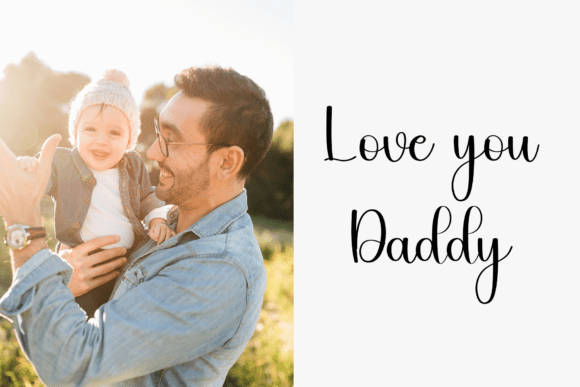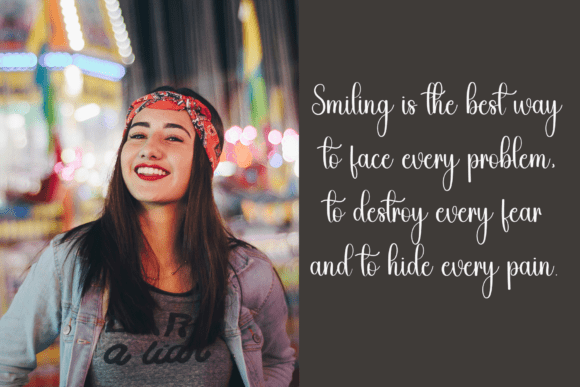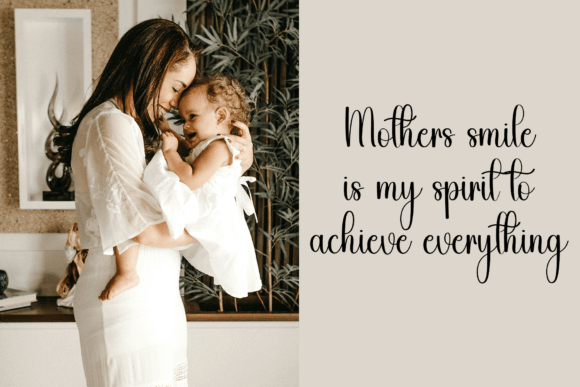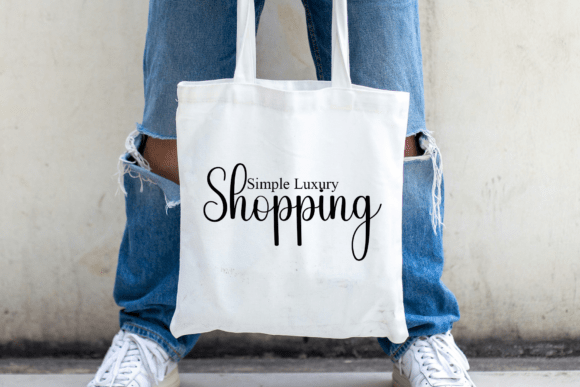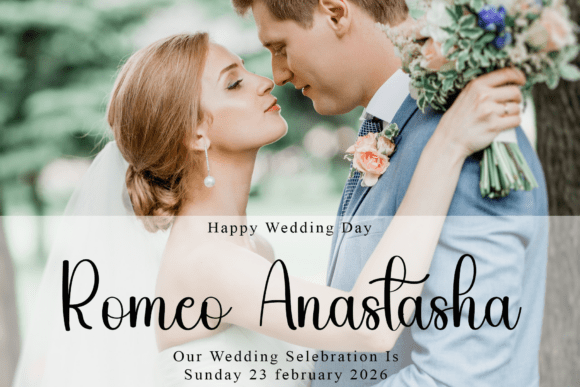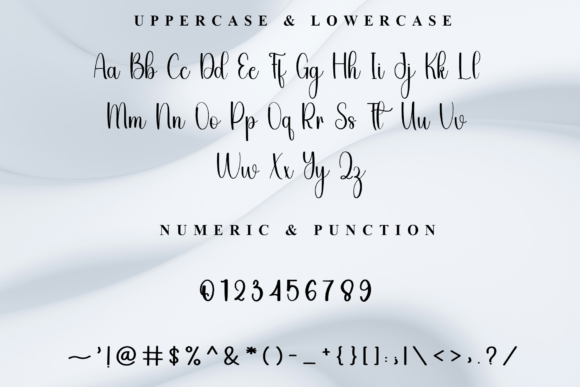
Unlocking the Secret to a Beautiful Smile
As a designer, you’ve probably experienced that moment when you’re brainstorming ideas for a project, and suddenly, the perfect font pops into your mind. It’s like a spark of creativity that sets your imagination ablaze. For me, that moment often starts with a playful, hand-drawn font that exudes warmth and friendliness.
Meet Beauty Smile Font, a casual and creative typeface that’s perfect for personal projects, invitations, and social media graphics. Its round, playful strokes create a relaxed and approachable feel that’s hard to resist. With its charming, hand-drawn aesthetic, Beauty Smile Font adds a fun and unique touch to any design. Whether you’re a seasoned designer or just starting out, this font is a valuable addition to your toolkit.
- Font Family: Beauty Smile is a unique, hand-drawn font that combines elegance and playfulness, ideal for various design projects.
- Character Set: The font includes a wide range of characters, including uppercase and lowercase letters, numbers, punctuation marks, and special characters.
- Unique Characteristics: The font’s hand-drawn design and irregular shapes give it a distinctive, personal touch, making it perfect for creative projects that require a unique look.
Design Review: Beauty Smile Font
Overall, I think the Beauty Smile Font is a nice addition to any design project. The font is clean, modern, and perfect for creating a touch of elegance and sophistication. ✨
- Playful and cursive feel, great for headers and titles ✨
- Wide range of language support, making it a versatile choice for global projects
- Comes in various weights and styles, allowing for a lot of creative flexibility
However, there are a few limitations that I’d like to mention:
- Not suitable for body text due to its decorative nature ⚠️
- Might not be the best choice for projects that require a more formal tone
- Some of the characters may not display correctly in certain fonts or applications
Overall, I’d give the Beauty Smile Font 4 out of 5 stars. While it has some limitations, its unique style and versatility make it a great addition to any design project. With a little creativity and planning, you can use this font to create some truly beautiful and eye-catching designs.
The Beauty Smile Font is perfect for:
- Creative and artistic designs
- Food and fashion branding
- Quirky and playful designs
Alternative Fonts for Beauty Smile Font
Cream Soda Font is a cursive font that resembles a vintage, handwritten style. It’s ideal for use in headings, titles, and other text where a playful, whimsical feel is desired. Compared to Beauty Smile Font, Cream Soda Font has a more relaxed, casual tone, making it suitable for a wider range of design applications.
Great Vibes Font is a modern, script font that conveys a sense of sophistication and elegance. It’s perfect for use in branding, logos, and other high-end design projects. While similar to Beauty Smile Font in its flowing, cursive style, Great Vibes Font has a more refined, polished look that’s better suited for formal or professional designs.